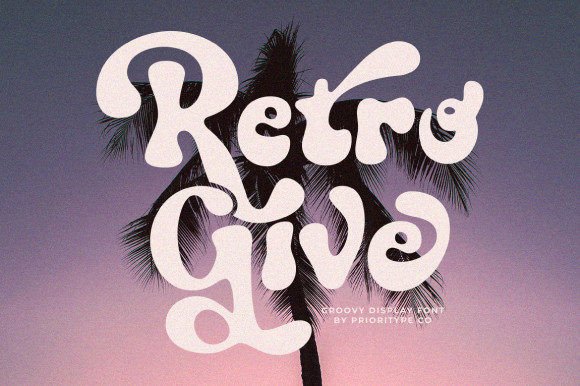
Introducing Retro Give Font, the ultimate game-changer in the world of fonts! Created by Prioritype, this bold display font is here to make your designs stand out in the crowd. With its fun and chubby characters, Retro Give Font brings a delightful touch to any project you have in mind.
Are you tired of boring and mundane fonts that fail to catch the eye? Look no further! Retro Give Font is the answer to all your design needs. Its unique and eye-catching style will instantly captivate your audience, leaving them craving for more. Whether you're working on a branding design, a logo, a social media post, or a poster, this font is your secret weapon to creating stunning visuals.
What sets Retro Give Font apart from the rest is its versatility. Packed with a wide range of alternative characters, this font allows you to experiment and take your designs to the next level. Each character has been meticulously crafted to ensure that every detail is perfect, giving your creations a professional and polished look.
But that's not all! Retro Give Font is not just a font, it's an emotion. It evokes a sense of nostalgia, taking you back to the vibrant and colorful era of retro designs. Let your imagination run wild as you explore the endless possibilities this font has to offer. From vintage-inspired projects to modern and edgy designs, Retro Give Font is your ultimate companion.
Don't settle for ordinary. Be extraordinary with Retro Give Font. Let your creativity shine and leave a lasting impression on your audience. Stand out from the crowd and make a statement with this font that screams personality and style.
Remember, Retro Give Font is not just a font. It's a masterpiece waiting to be discovered. Get ready to embark on a design adventure like no other. Let Retro Give Font be your guiding light, and watch as your creations become works of art.